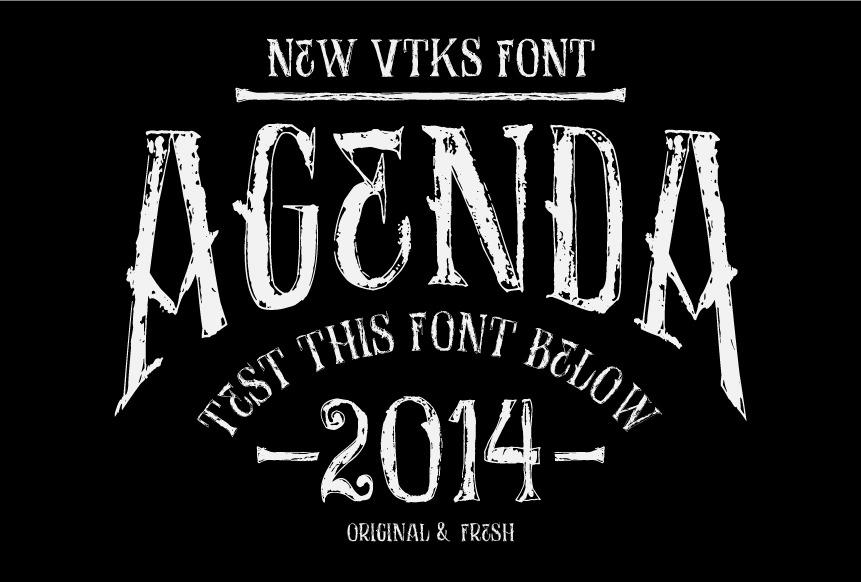
Grunge font and 4 arts in vector (cs3+). The files arts are using these fonts. Easy to edit. Install fonts first and open the files and play around. Thanks!